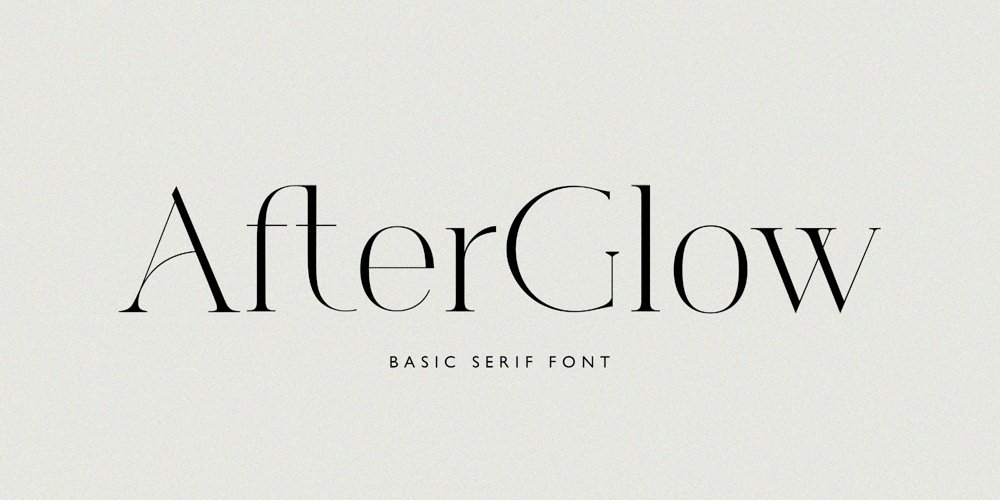
Afterglow Elegant
Afterglow Elegant font
Afterglow Elegant Font Family was designed by Elvina Gafarova and published by Elvina Studio. Afterglow Elegant contains 2 styles and family package options. Afterglow is an elegant, fashion and classic font will be a perfect for invitations, logos or any branding design project. Upper/lowercase, numbers, punctuations. Multilingual support.